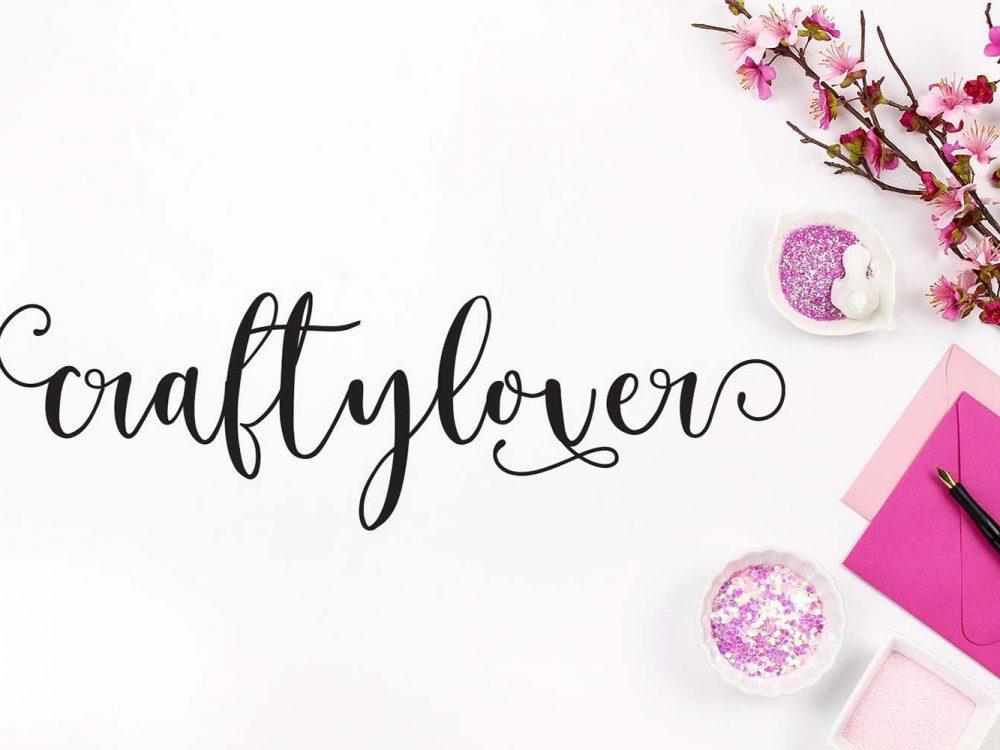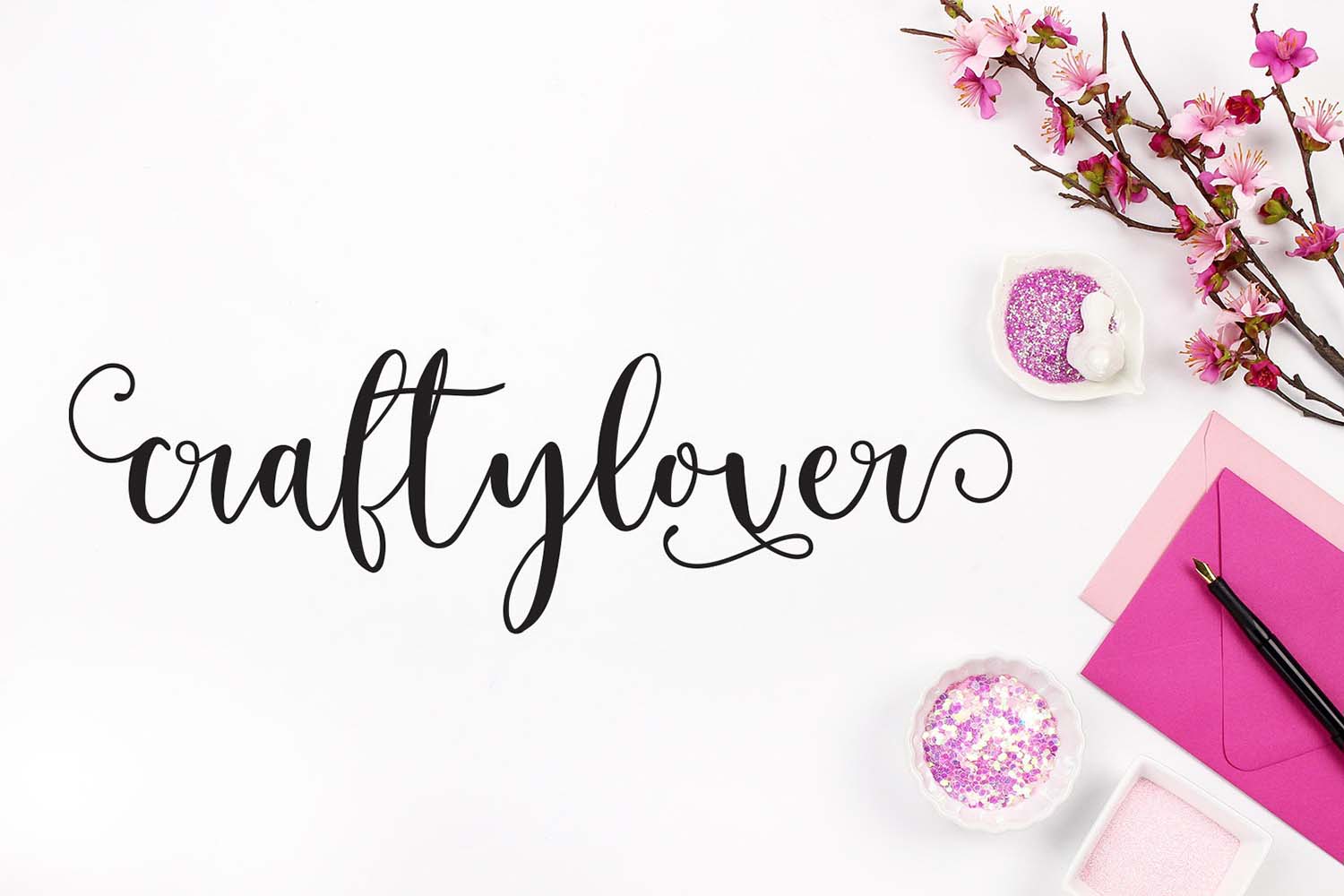
Craftylover Signature Free Font
Craftylover Signature Free Font is an interesting elegant handwritten font that features outline lines and is perfect for creating various design projects that require a scripted font. Use this font to create posters, wedding invitations, cards, branding, flyers, posters, and more.